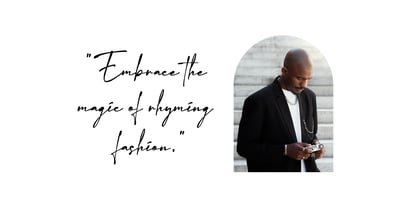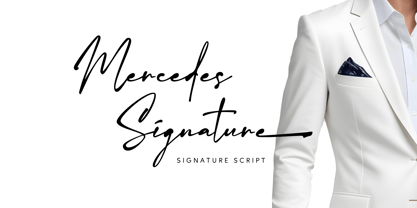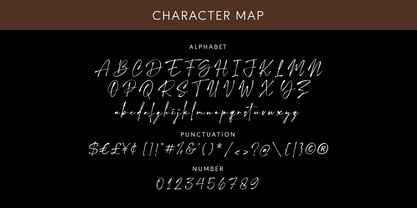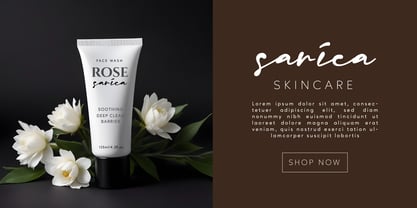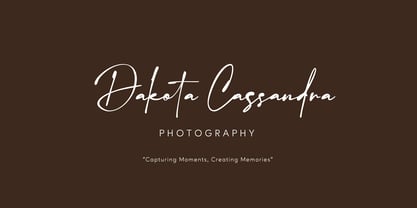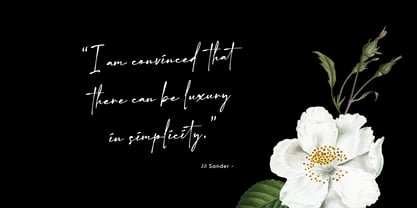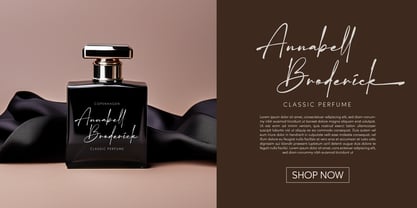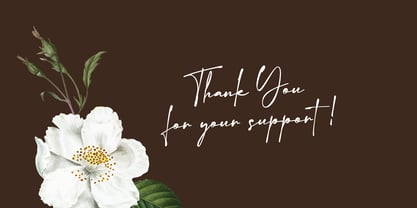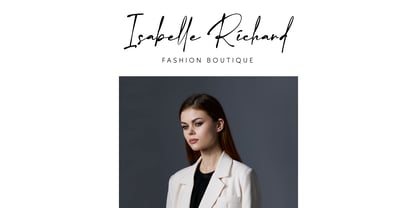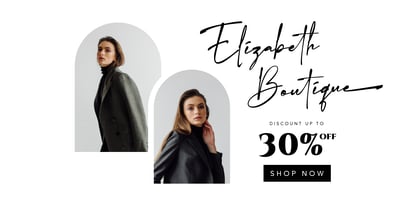
Mercedes Signature
by Grezline Studio
The Mercedes Signature Font Family was designed by Akhmad Reza Fauzi and published by Grezline Studio. Mercedes Signature contains 1 styles. More about this family
Mercedes Signature is an organic signature script font. This font is the best choice for fashion-related design. Mercedes Signature is perfect for branding, invitations, logos, or any creative projects that requires a touch of elegance.
Feature :
- Alternate and Ligature
- Multilingual Language